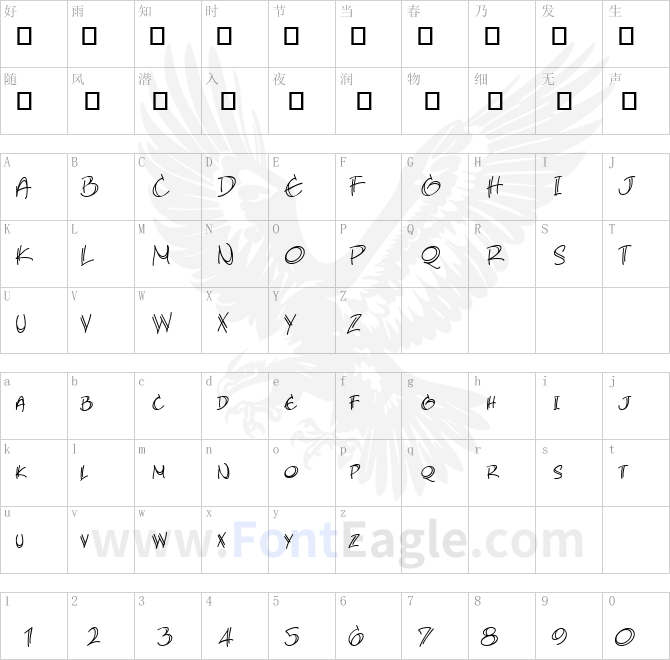
- Font name:AtlandSketches BB
- Font Subfamily ID:NatePiekos: AtlandSketches BB: 2006
- Font Full Name:AtlandSketches BB
- Postscript:AtlandSketchesBB
- Font Copyright:Copyright (c) 2006 by Nate Piekos. All rights reserved.